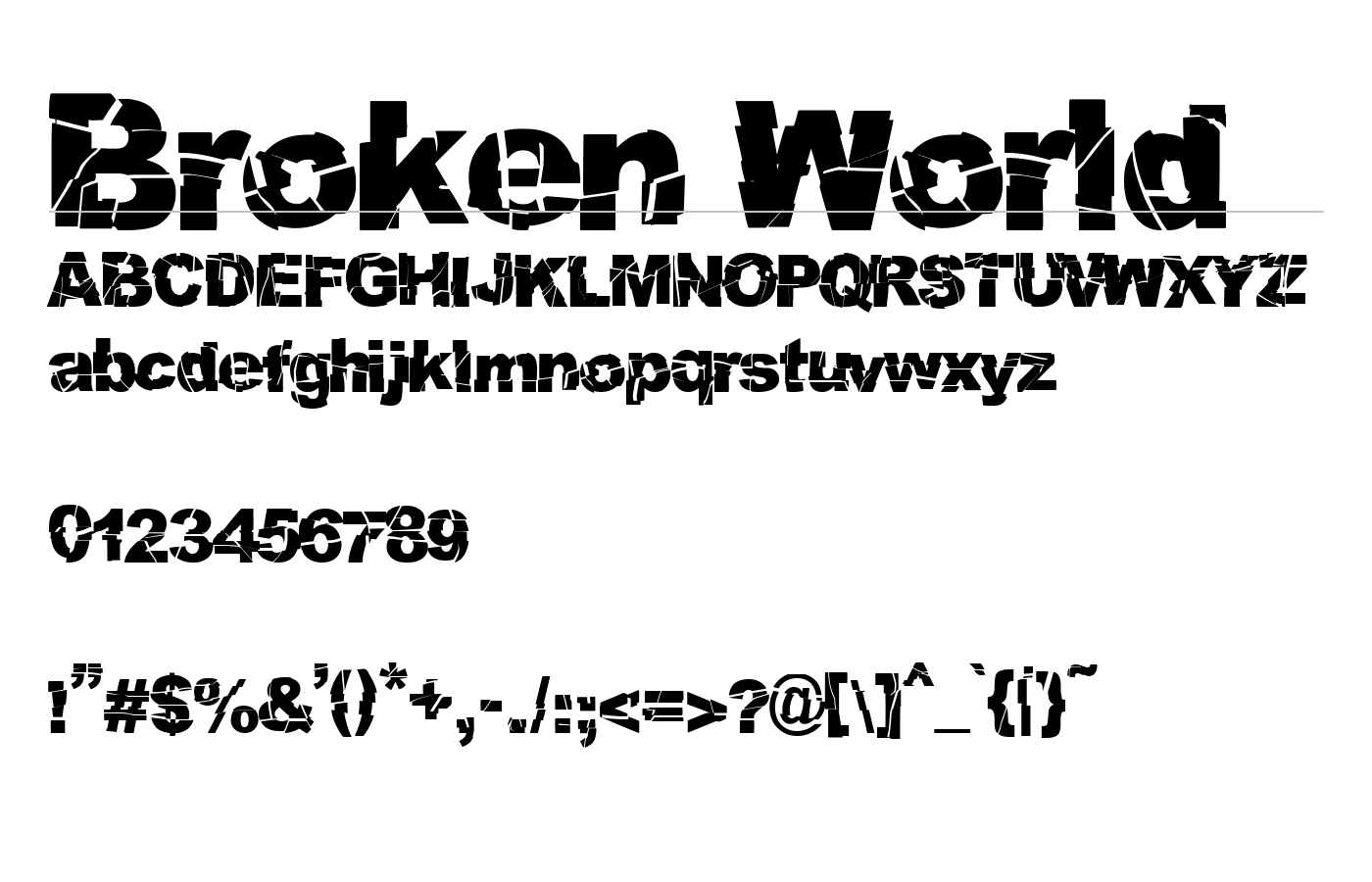
Broken World is a bold, sans serif font with a distressed, fragmented design that gives each letter a shattered, edgy appearance. Its heavy weight and irregular breaks create a striking, dramatic effect ideal for attention-grabbing headlines, posters, or creative branding where a rugged, rebellious vibe is desired. This font works best in display settings where its unique broken style can stand out and convey a sense of disruption or raw energy.
Broken World Font
About Broken World Font